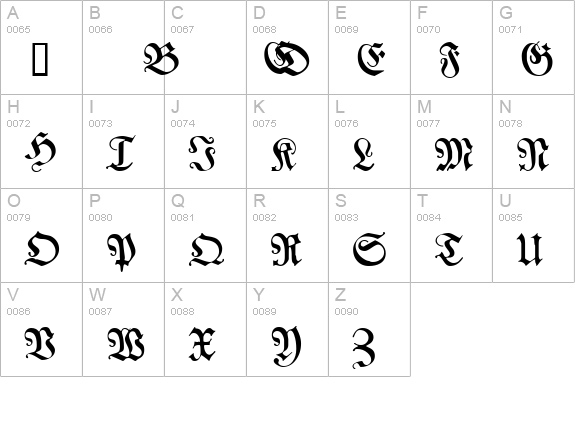
Franconian Font Details
The Franconian font is a classic and elegant typeface that exudes sophistication and charm. With its distinctive serifs and timeless appeal, Franconian is perfect for conveying a sense of tradition and refinement in your design projects. This versatile font is suitable for a wide range of applications, from branding and advertising to editorial and web design. One of the best things about the Franconian font is that it is completely free to download at FontsMarket.com. This means that you can easily access this beautiful typeface and use it in your projects without any cost. Whether you're working on a personal project or a commercial venture, Franconian is sure to add a touch of elegance and professionalism to your work. Don't miss out on this amazing opportunity to enhance your designs with the timeless beauty of the Franconian font.